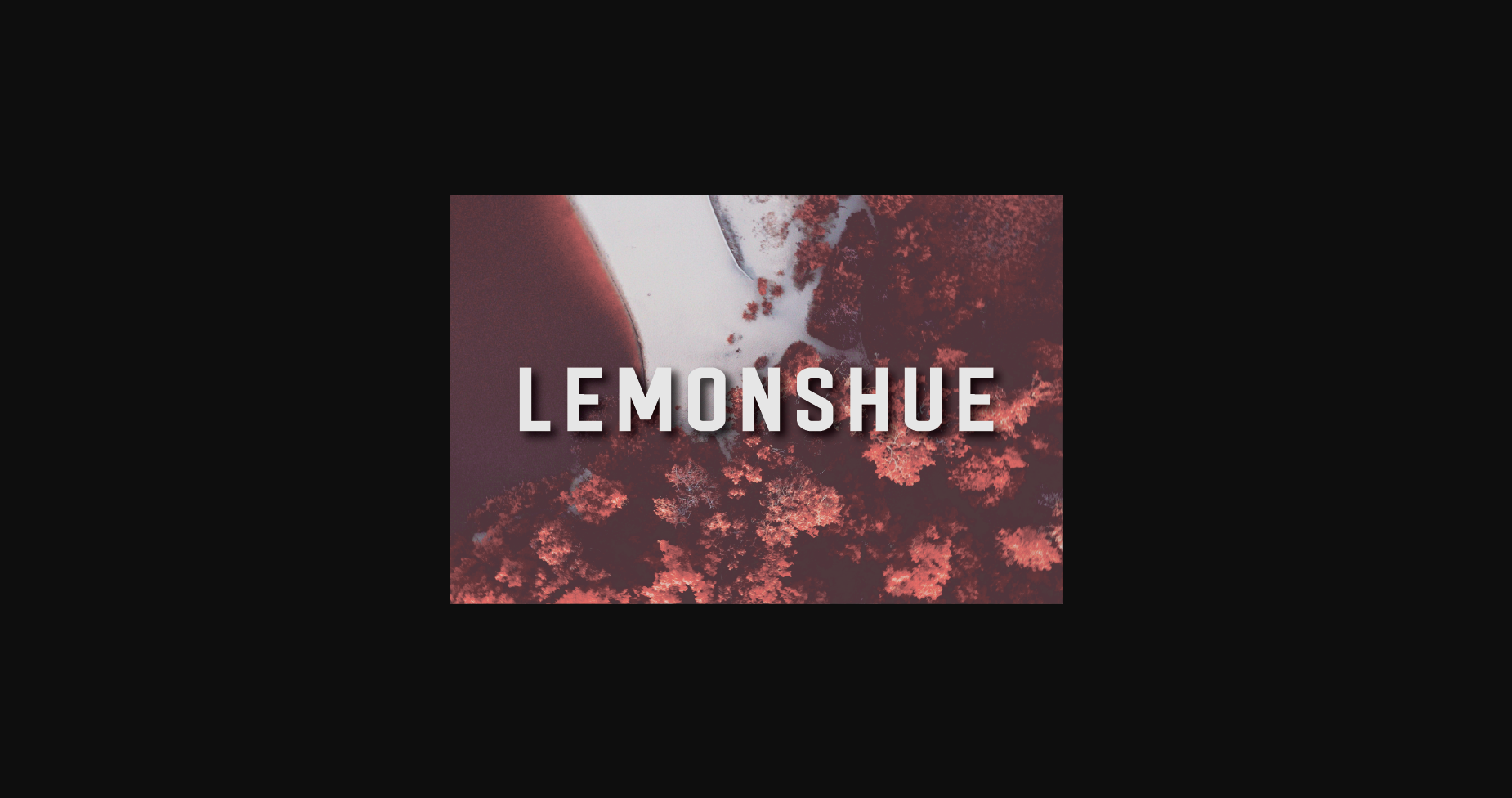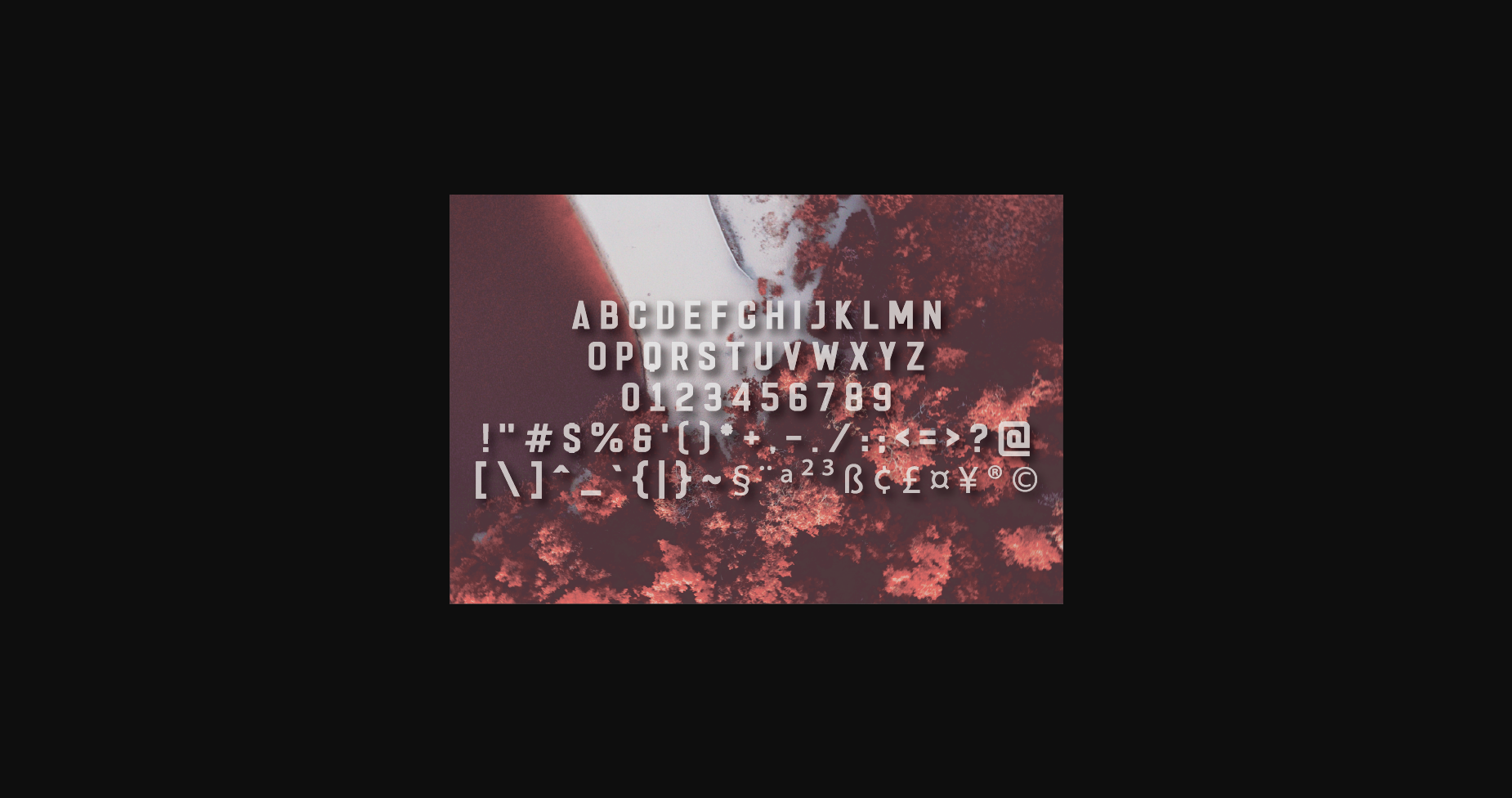
Lemonshue Font
About Lemonshue Font
Lemonshue is a thick lettered and neat sans serif font. It can easily be matched to an incredibly large set of projects, so add it to your creative ideas and notice how it makes them stand out!